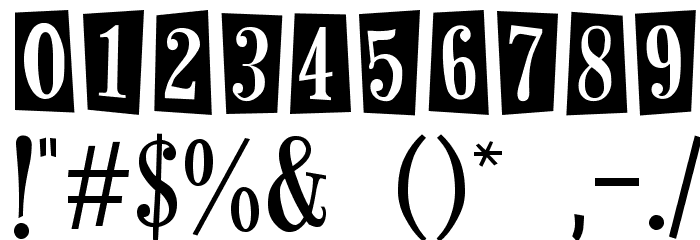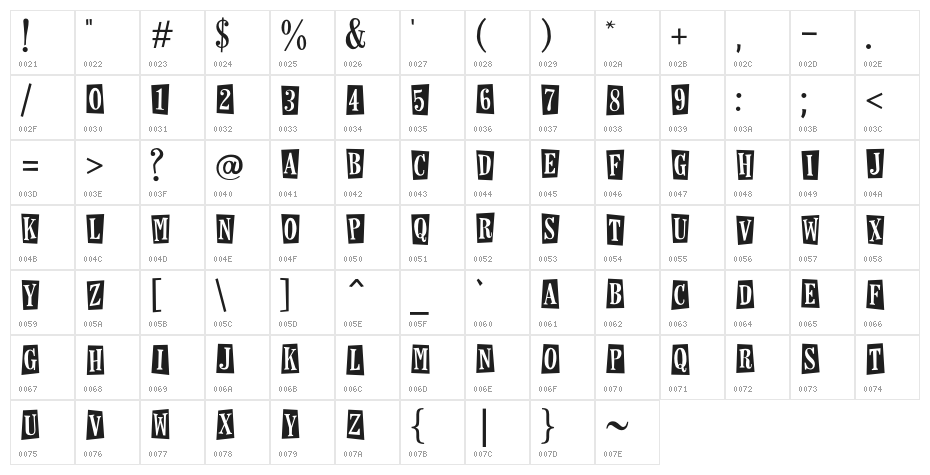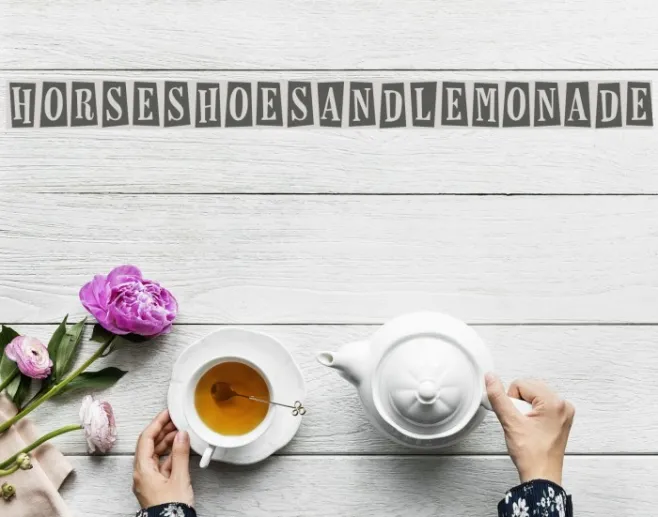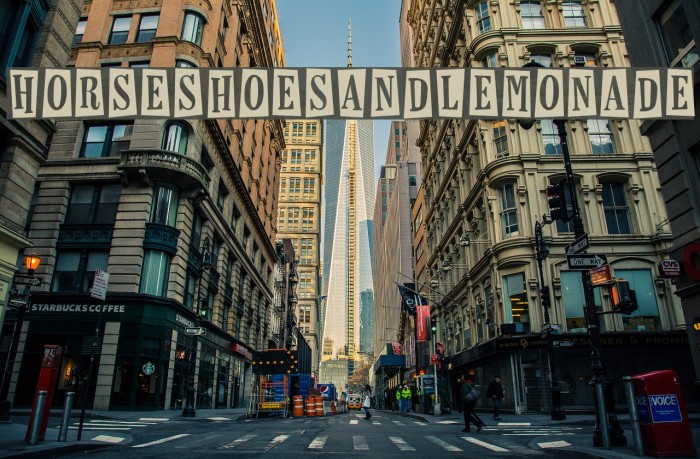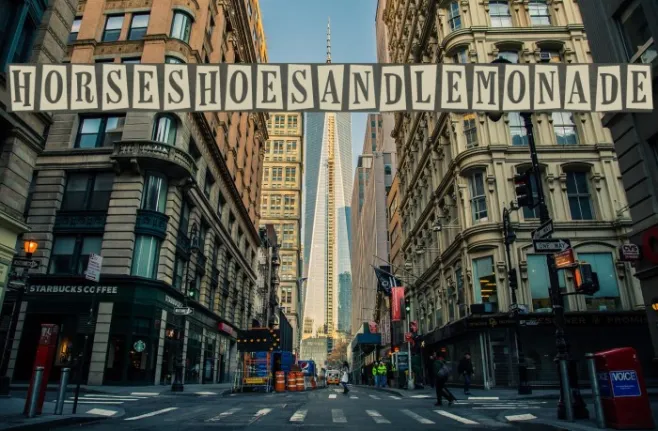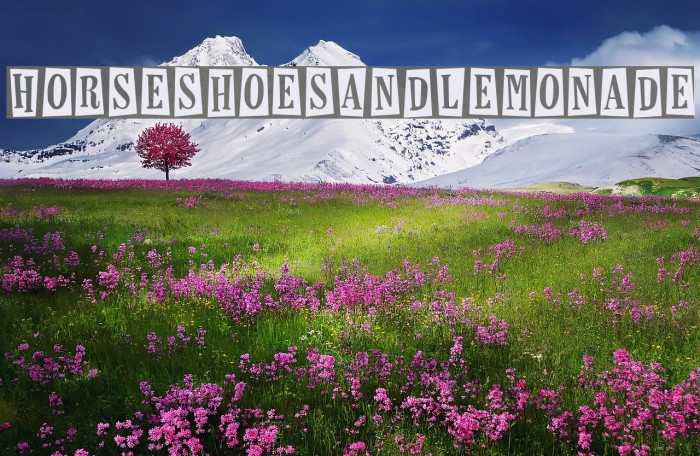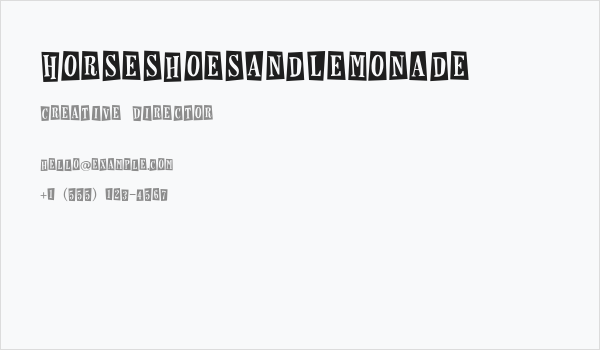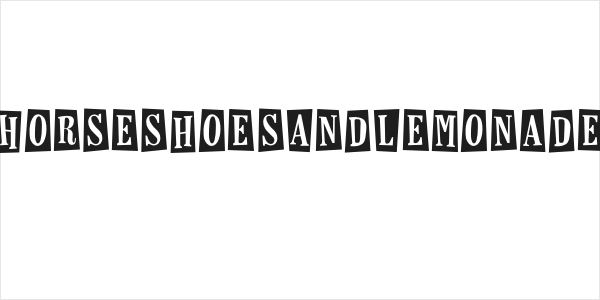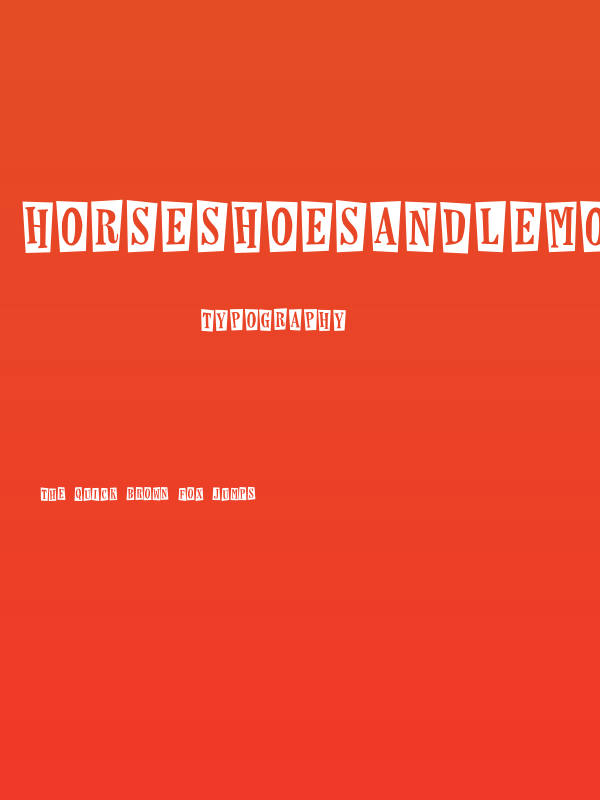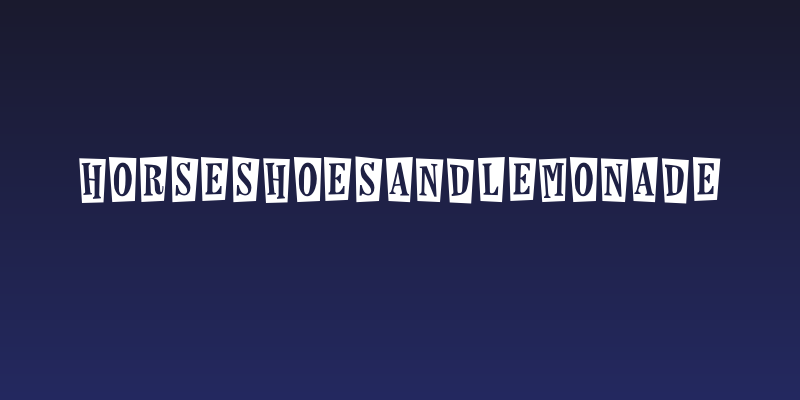
HorseshoesAndLemonade Font
HorseshoesAndLemonade Description
This font features a playful and whimsical style with a hand-crafted appearance. Each character is set within a tilted, irregular rectangle, giving it a dynamic and lively feel. The letters are bold with a slight serif touch, adding a classic yet quirky vibe. The font's uneven baseline and varied letter widths contribute to its informal and artistic look, making it ideal for creative projects. The numbers and special characters maintain the same playful style, ensuring consistency across all text elements.
| Overall Style | Whimsical, Playful, Artistic |
| Use Case | Headlines, Posters, Creative Branding |
| Proposed Projects | Ideal for children's books, playful branding, posters, and creative invitations. |